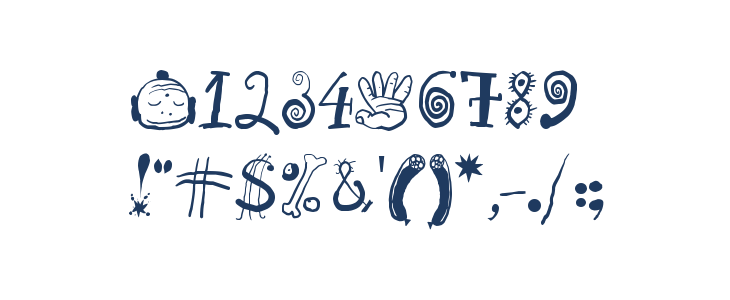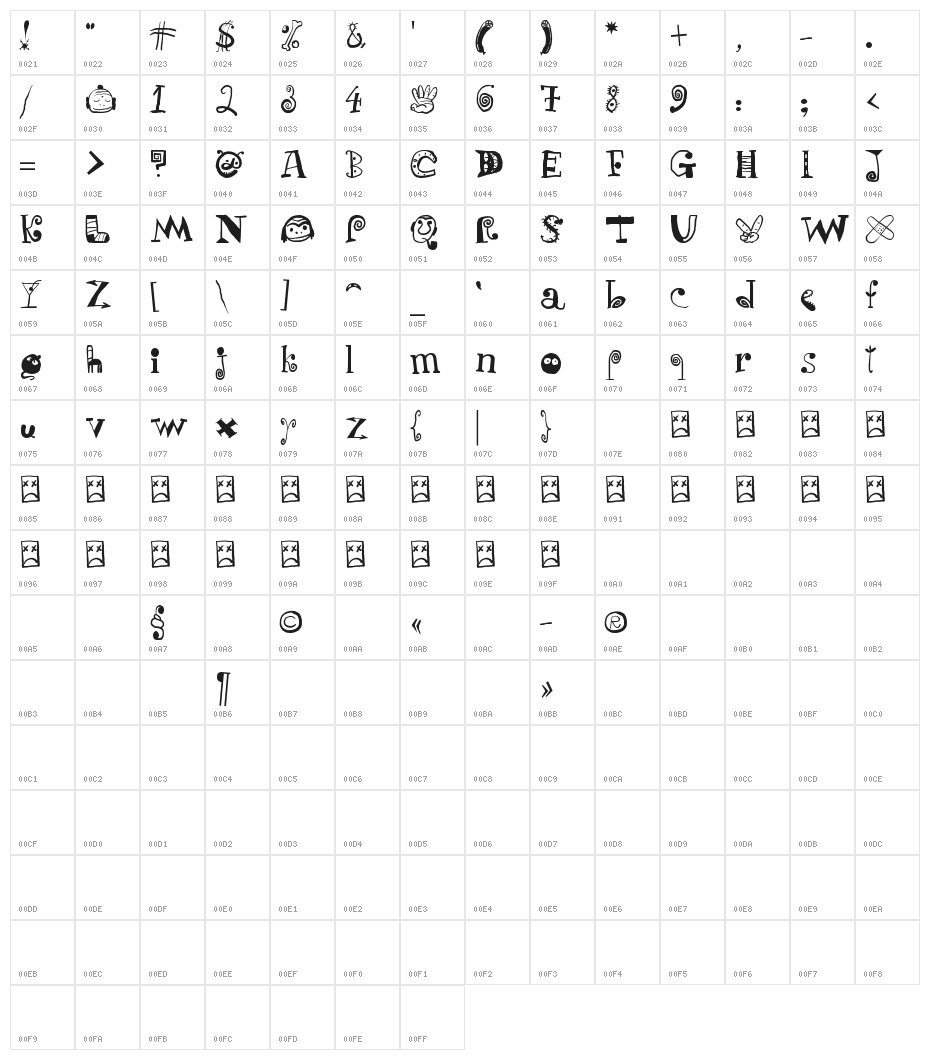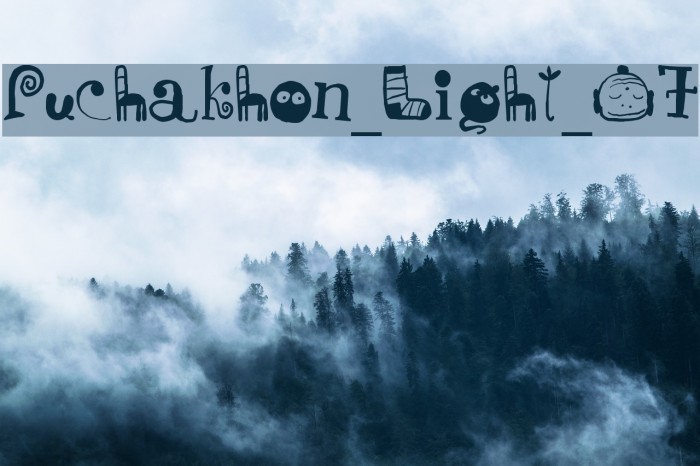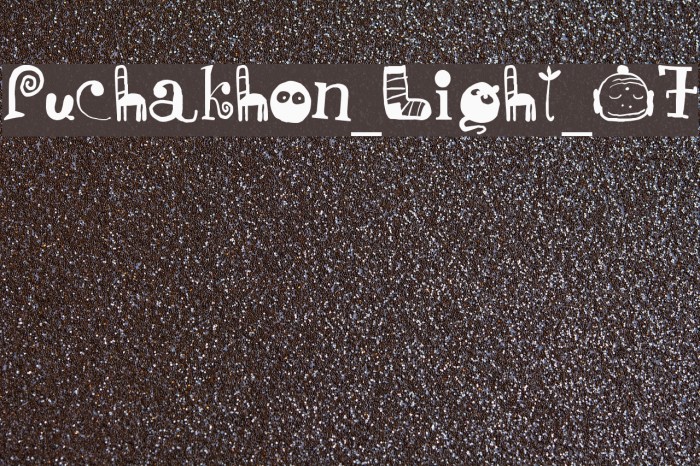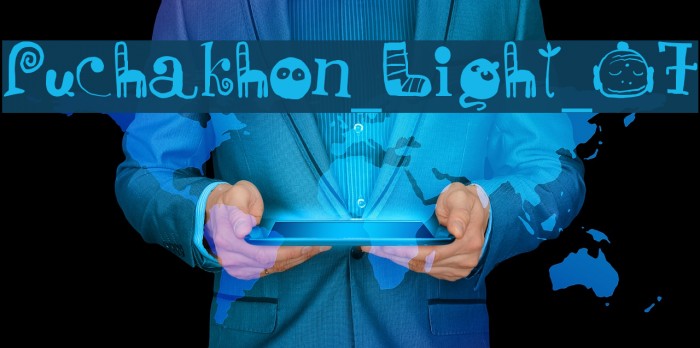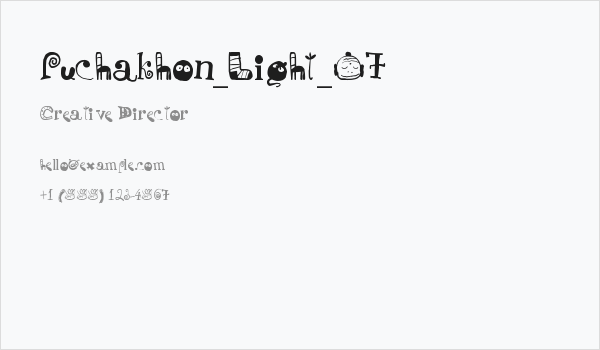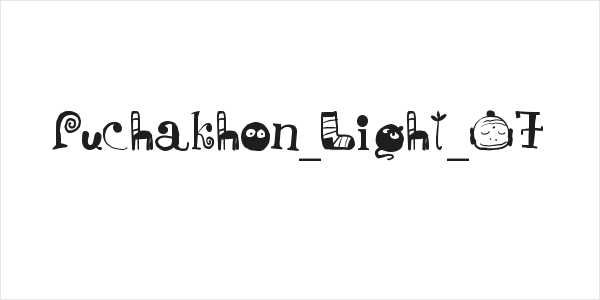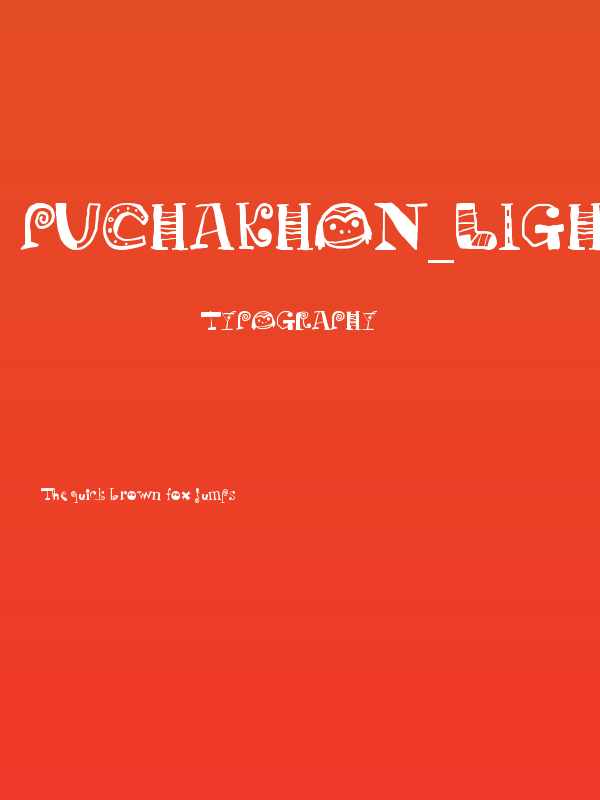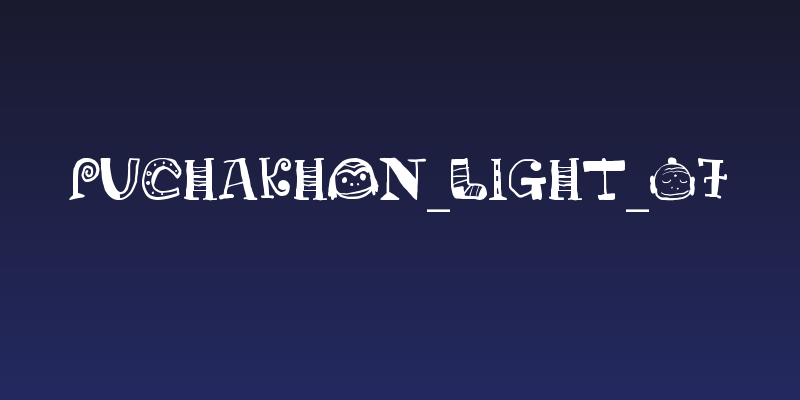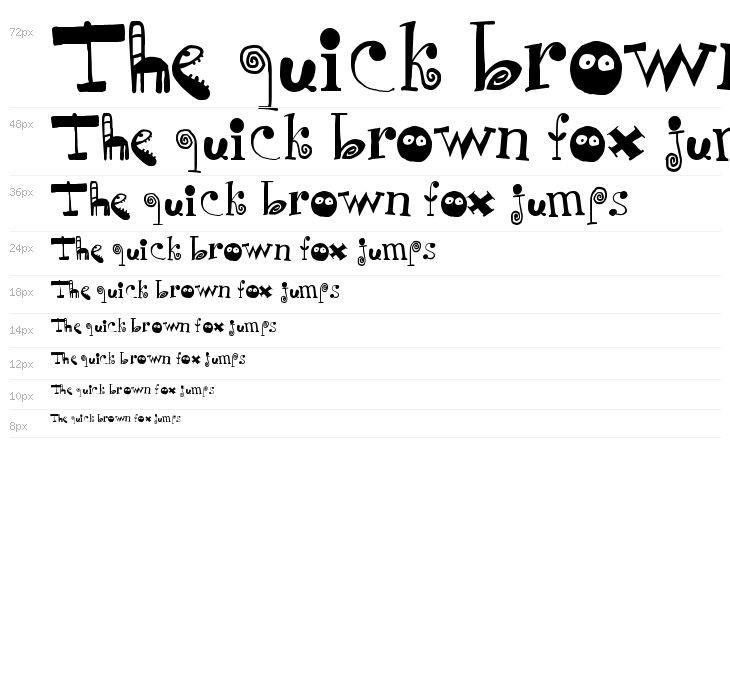
Puchakhon_Light_07 Font
Puchakhon_Light_07 Description
This whimsical and playful font features a variety of unique and quirky designs for each character. The uppercase letters are adorned with creative elements such as dots, stripes, and swirls, giving each letter a distinct personality. The lowercase letters continue this theme with imaginative embellishments, making the font highly decorative. Numbers and special characters are equally inventive, incorporating playful motifs like faces and hands. This font is perfect for projects that require a fun and artistic touch, capturing attention with its bold and imaginative style.
| Proposed Projects | Ideal for children's books, playful branding, creative posters, and artistic invitations. |